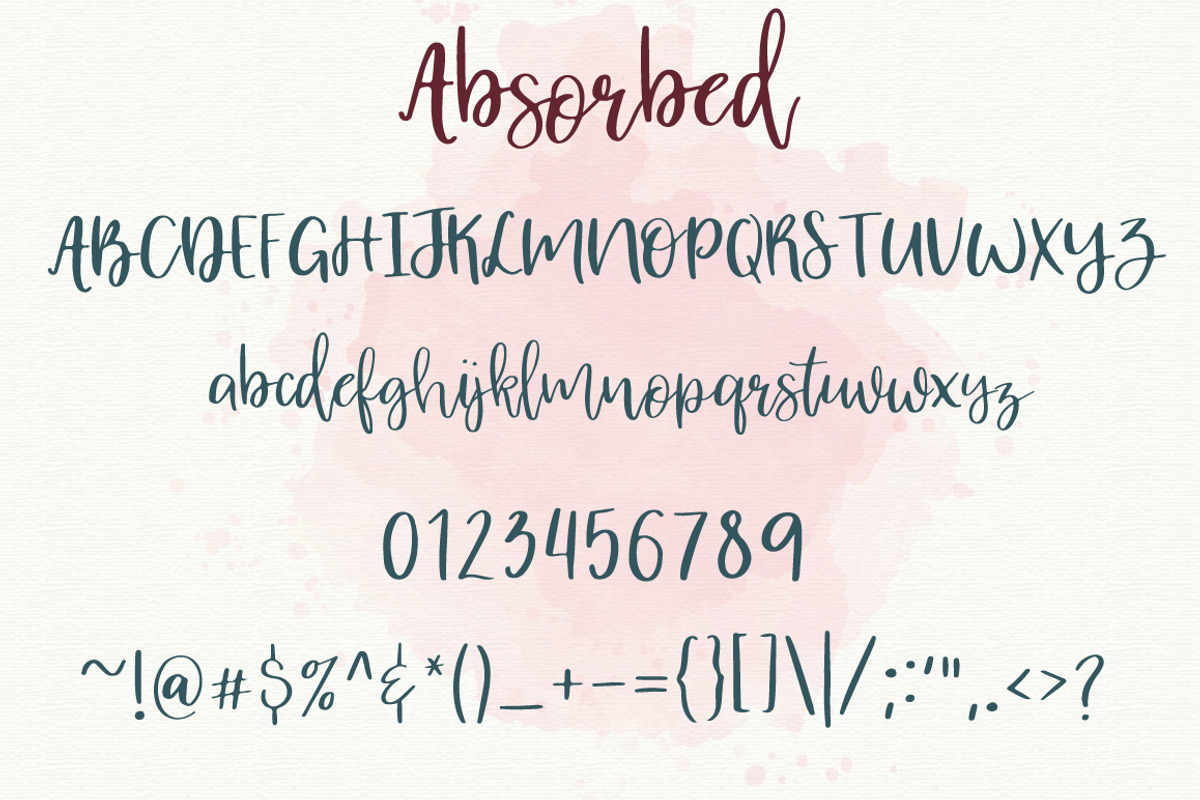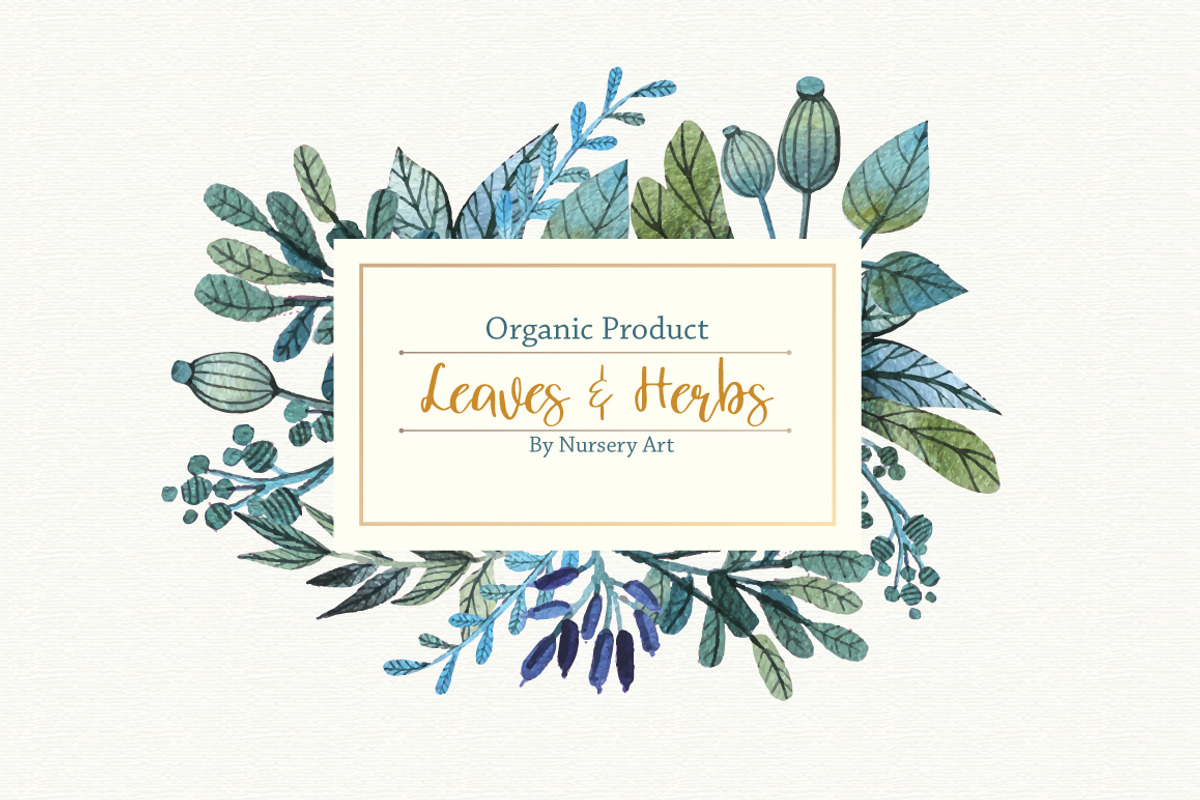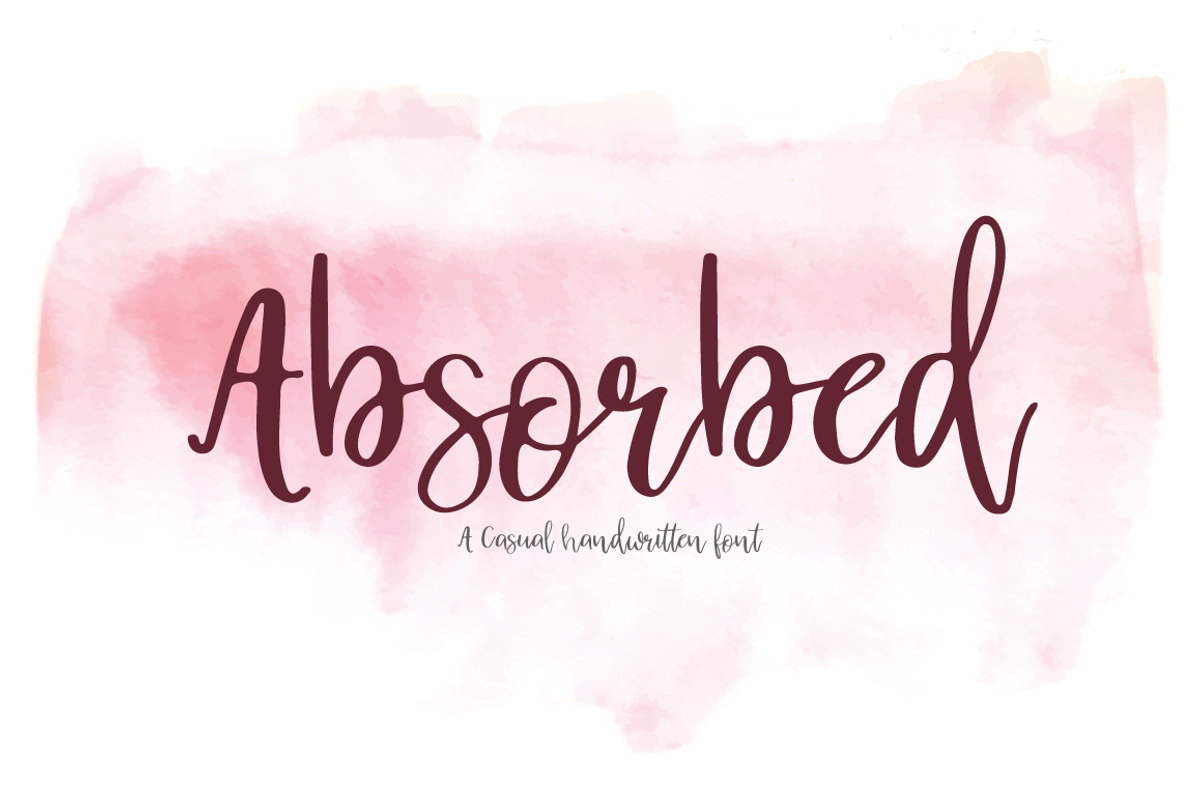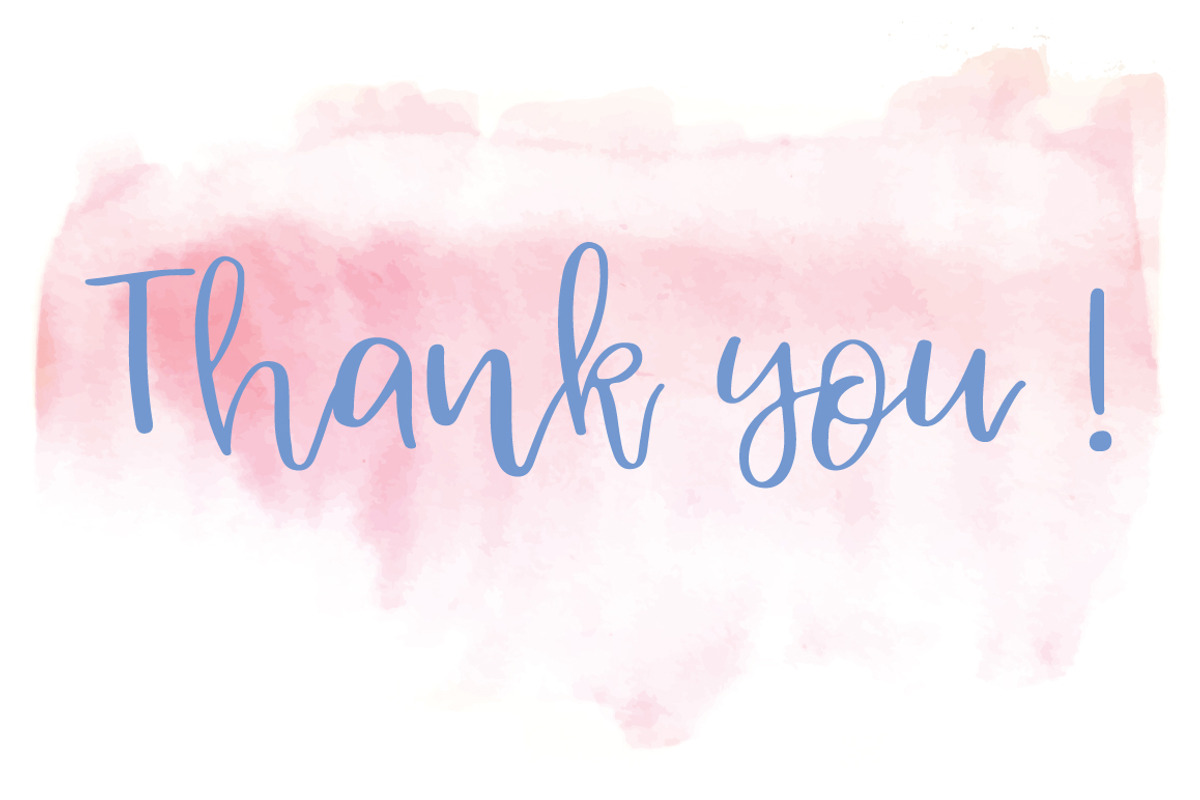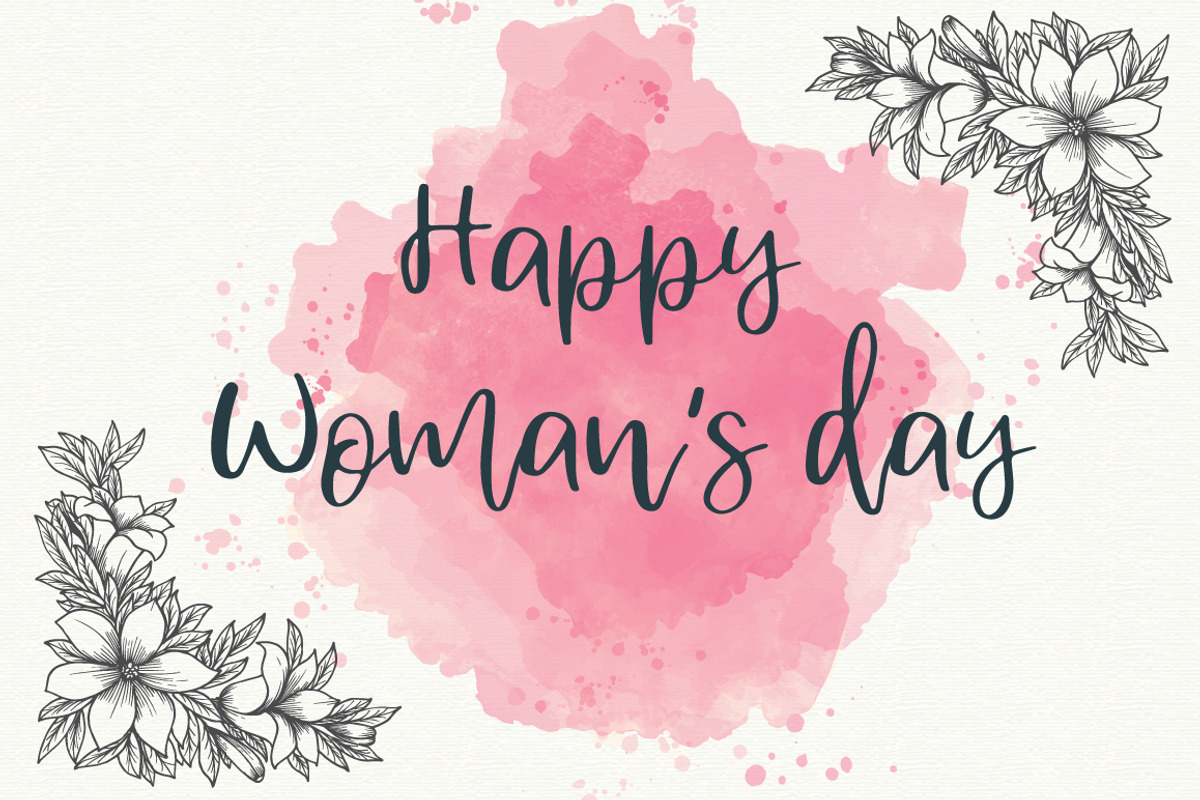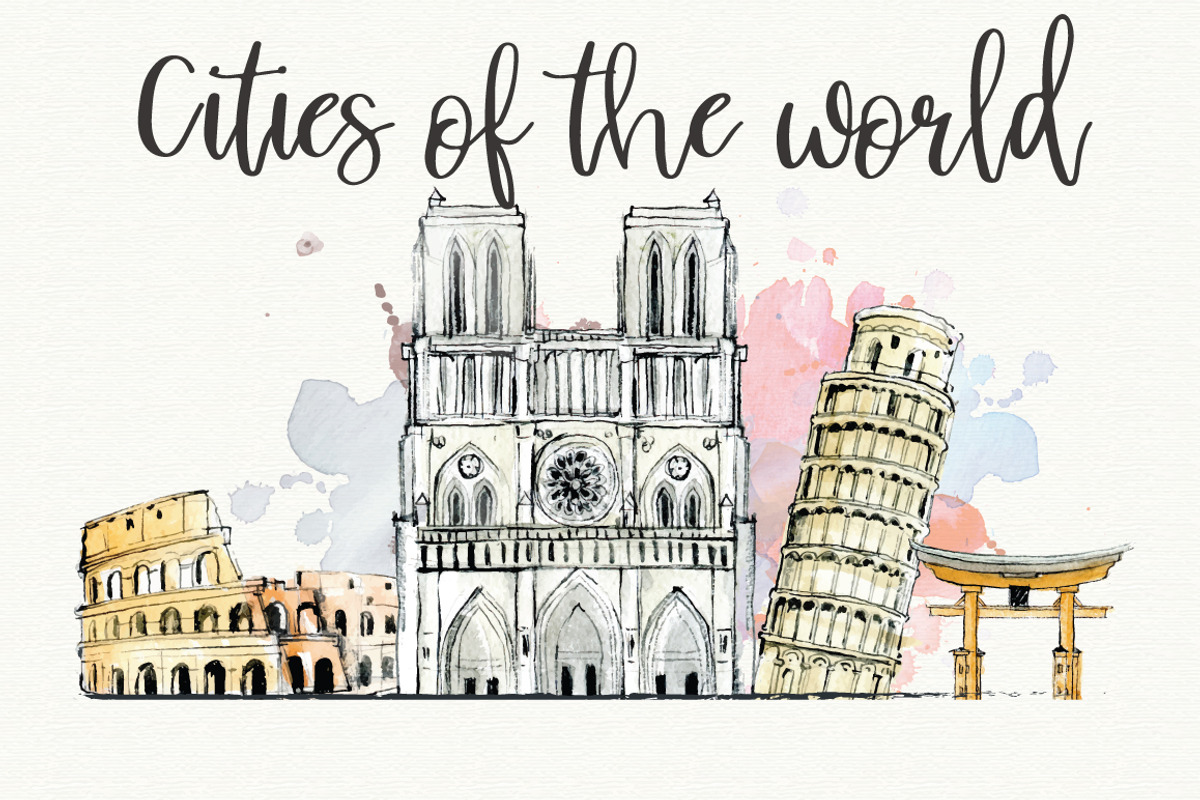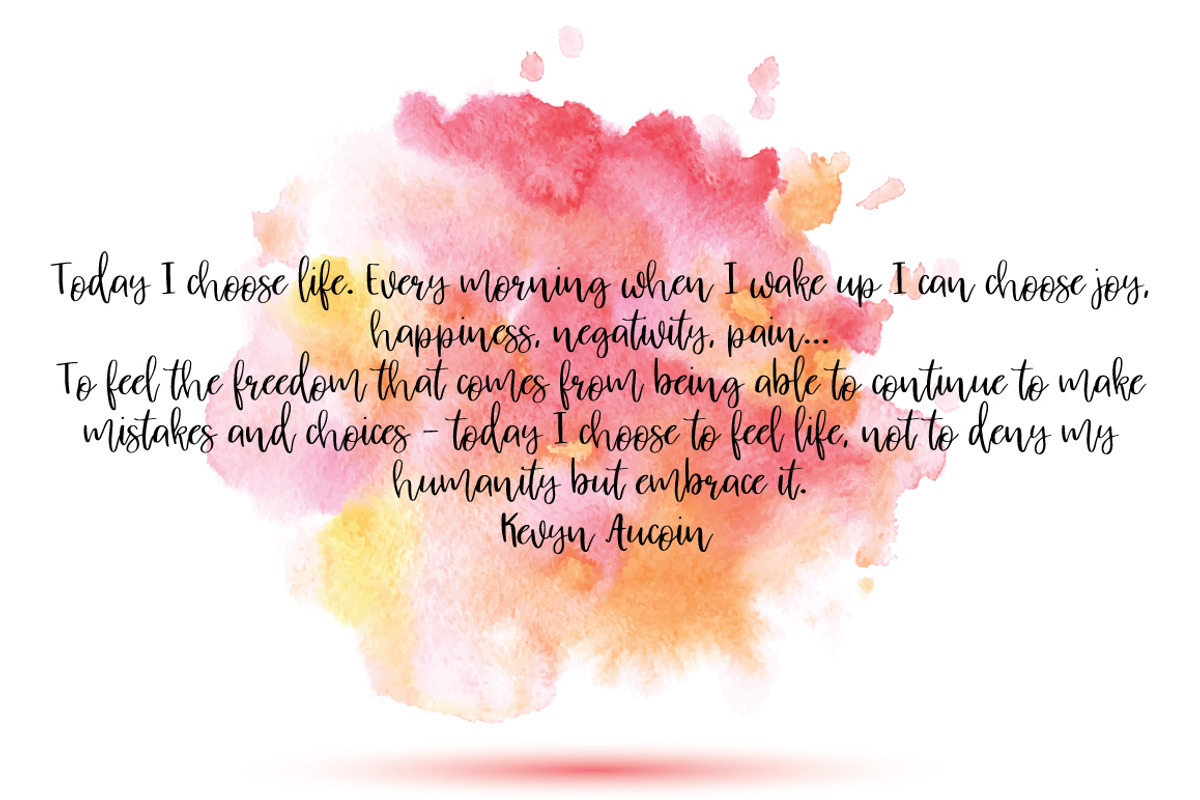
Absorbed | Script Font
Absorbed | Script Font - Script
It's handwritten script font.
This font is perfect for wedding invitation or your blog. Also with their help, you can create a logo or beautiful frame for your home. Or just use for your small business, book covers, stationery and more.
Why Absorbed | Script Font is worth a look
Absorbed | Script Font by Artstudio fits naturally into Branding, posters, packaging, typography.